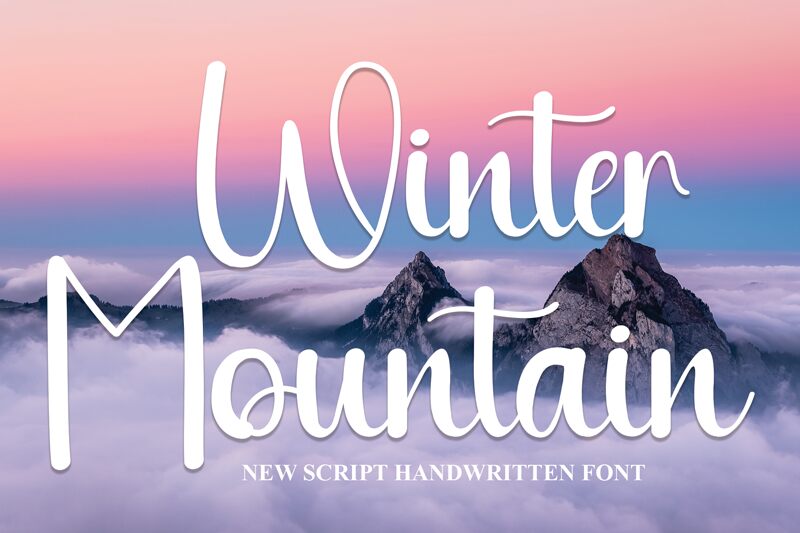
Winter Mountain
Winter Mountain, a creation by Scratchones, brings the charm of handwritten artistry to the digital realm. With its semi-light weight, this font exudes an air of delicate sophistication that's as refreshing as a crisp winter's day. The fluidity of its characters suggests a personal touch, making it an excellent choice for projects that require a blend of elegance and intimacy.
The aesthetic appeal of Winter Mountain lies in its ability to capture the spontaneity and individuality of handcrafted script with enough clarity to remain legible and functional. Its stylish undulations are reminiscent of a pen gliding over textured paper, offering designers an expressive tool for adding personality to branding, invitations, or editorial content.
Embracing versatility without sacrificing character, Winter Mountain stands out as an ideal candidate for creative endeavors that seek to marry contemporary design with a hint of rustic charm. Whether it graces the pages of a boutique lookbook or adds flair to personalized stationery, Winter Mountain is poised to elevate any project with its distinctive handwritten style.
The aesthetic appeal of Winter Mountain lies in its ability to capture the spontaneity and individuality of handcrafted script with enough clarity to remain legible and functional. Its stylish undulations are reminiscent of a pen gliding over textured paper, offering designers an expressive tool for adding personality to branding, invitations, or editorial content.
Embracing versatility without sacrificing character, Winter Mountain stands out as an ideal candidate for creative endeavors that seek to marry contemporary design with a hint of rustic charm. Whether it graces the pages of a boutique lookbook or adds flair to personalized stationery, Winter Mountain is poised to elevate any project with its distinctive handwritten style.